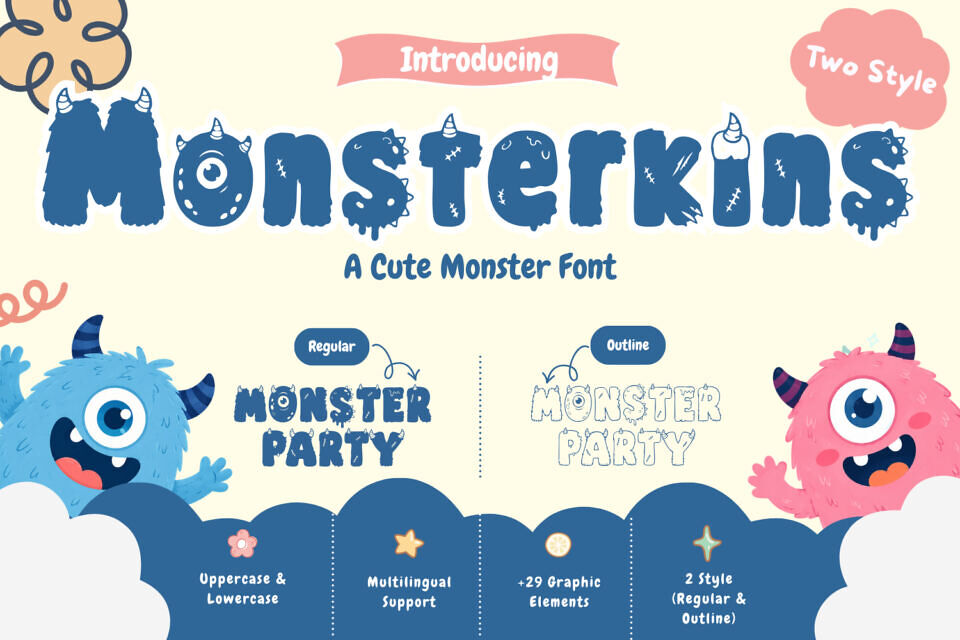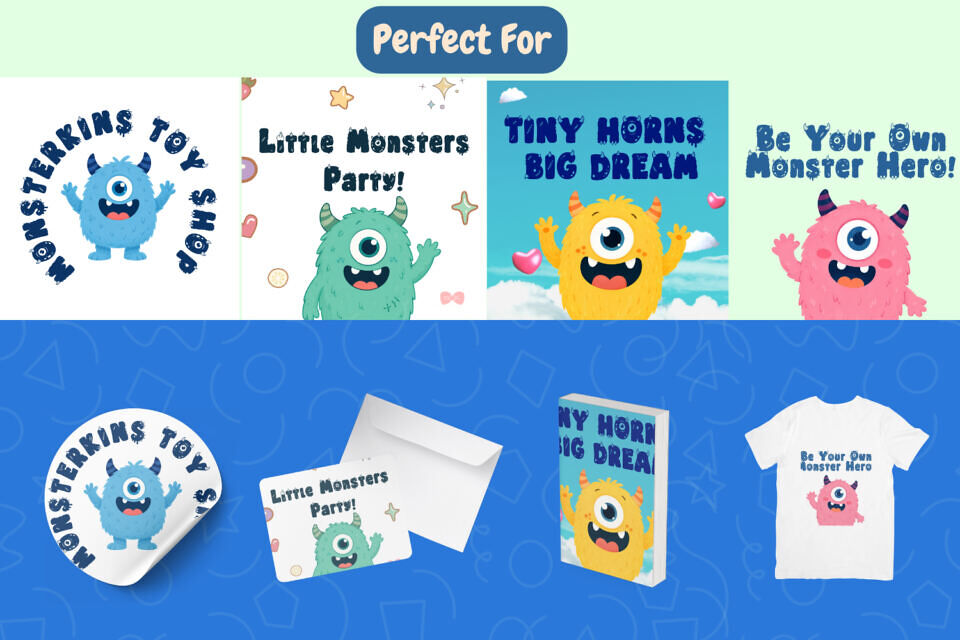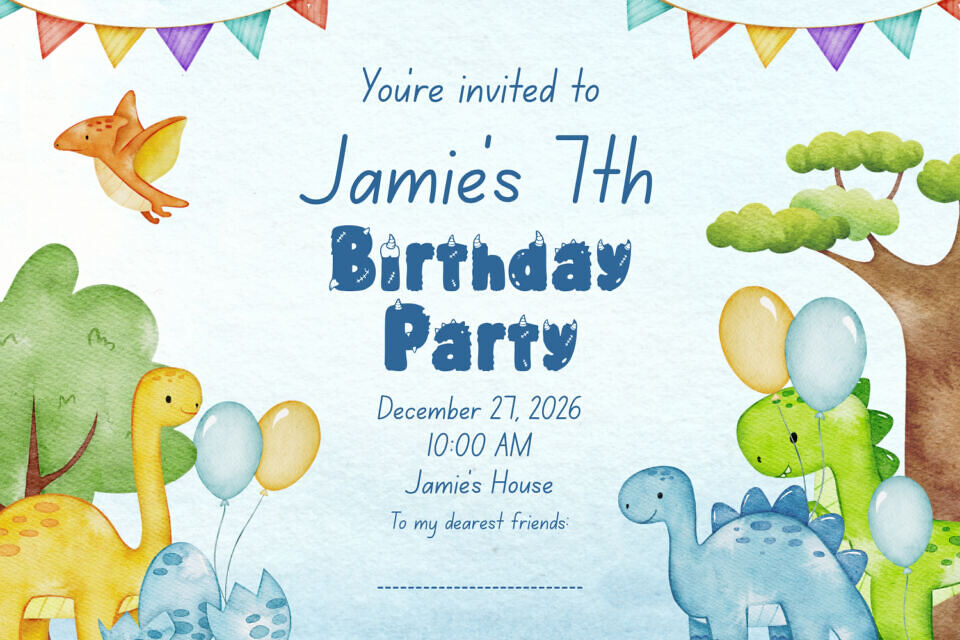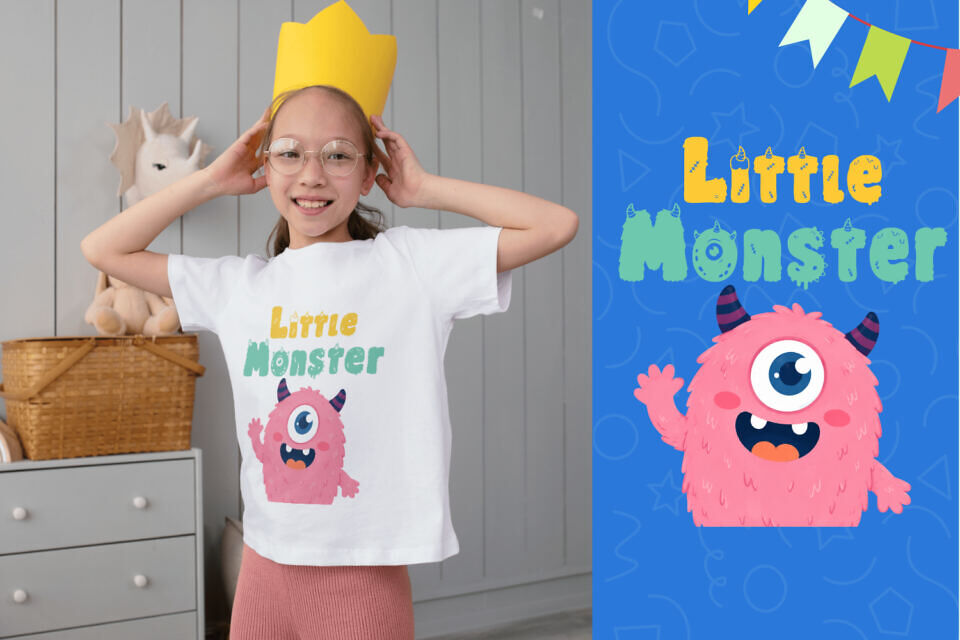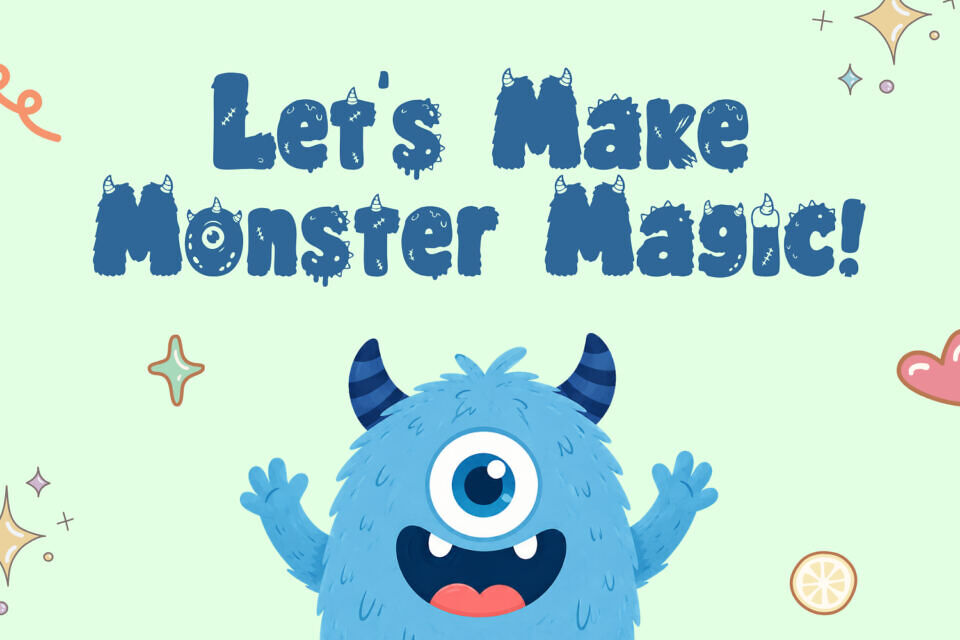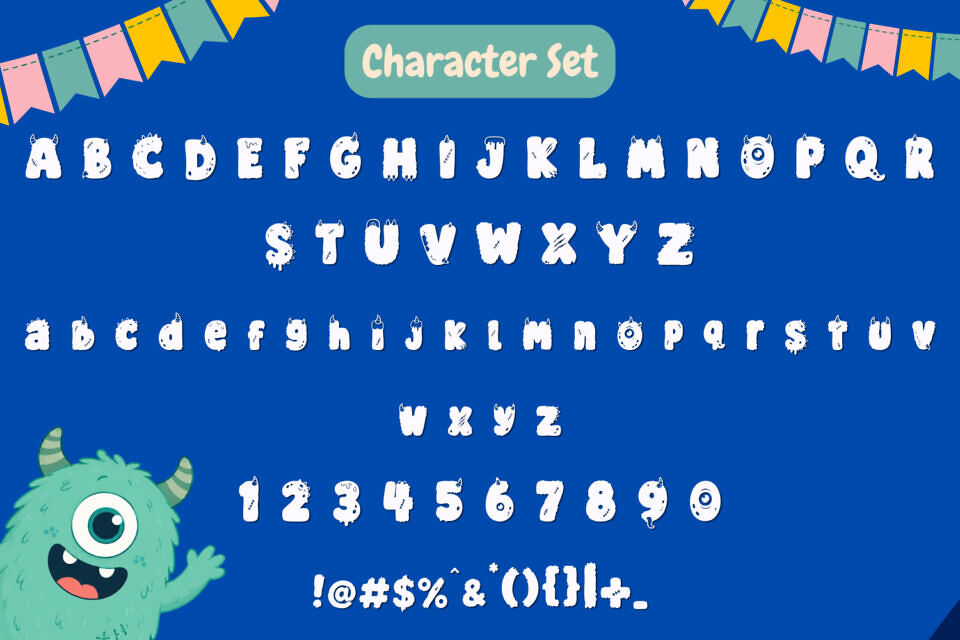
Meet Monsterkins, a cute and playful monster display font packed with fluffy details, adorable horns, and fun character shapes. Designed to bring joy and imagination to your creative projects, Monsterkins is perfect for kids designs, toy branding, party invitations, Halloween crafts, stickers, posters, merchandise, and more.